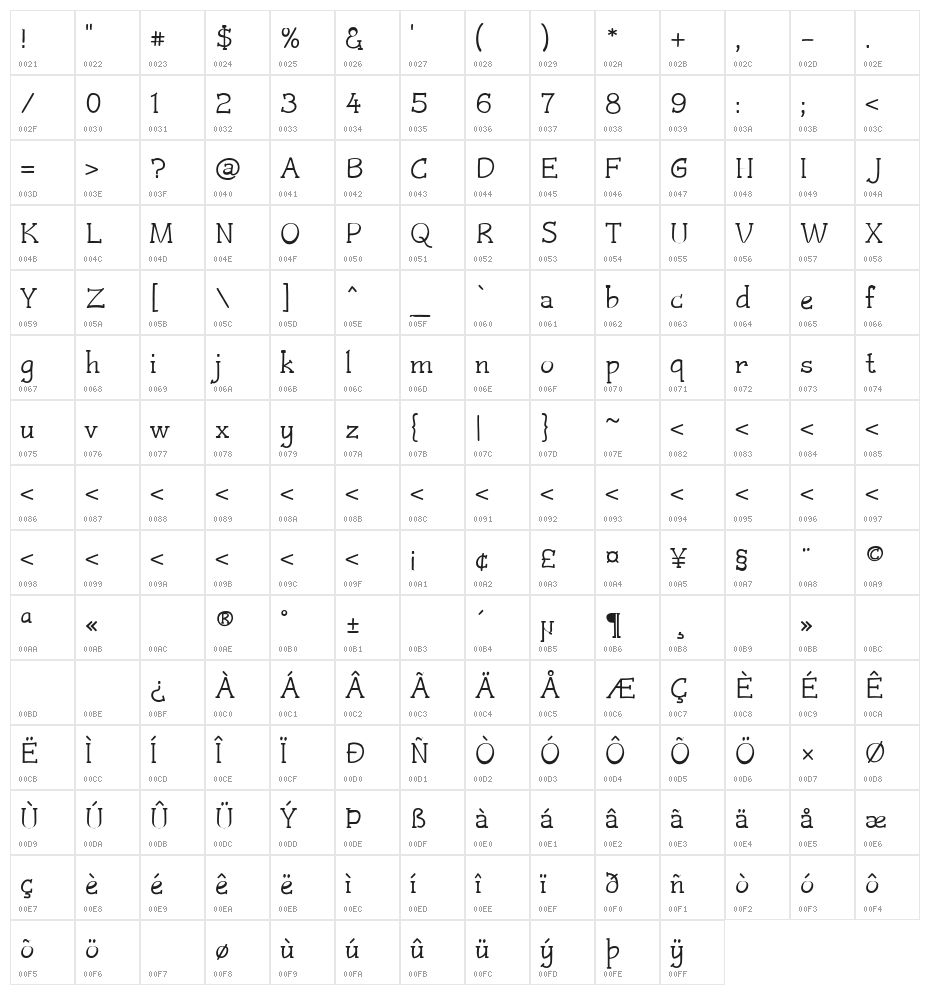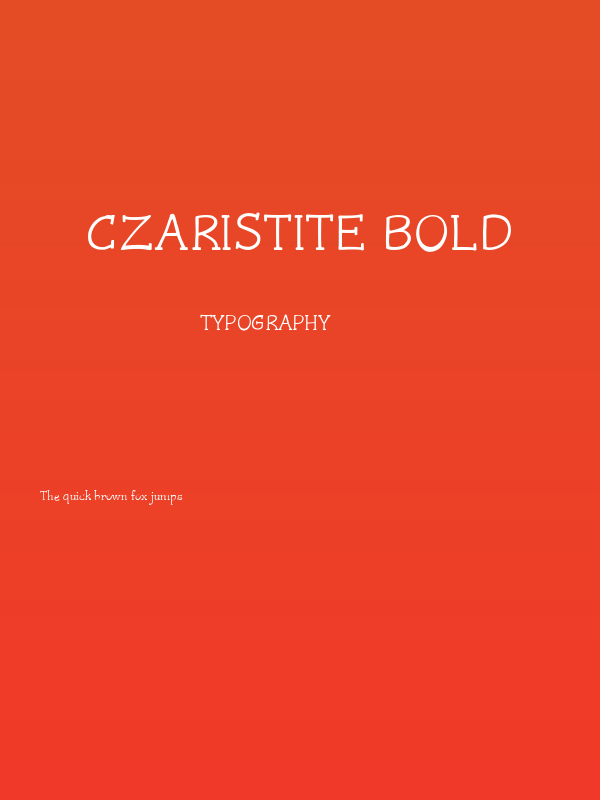
Czaristite Bold Font
Czaristite Bold Description
This font exhibits a playful yet structured design, characterized by its bold and slightly whimsical strokes. The letters have a distinct hand-drawn quality, with subtle curves and varying line thicknesses that add a touch of personality. The uppercase letters are tall and commanding, while the lowercase letters maintain a consistent flow, enhancing readability. The numerals are clear and well-proportioned, complementing the overall style. Special characters are thoughtfully designed, maintaining the font's unique aesthetic. This font is versatile, suitable for both formal and informal applications, offering a creative flair without sacrificing legibility.
| Overall Style | Playful, Creative |
| Proposed Projects | Ideal for branding, posters, children's books, and creative projects requiring a unique touch. |